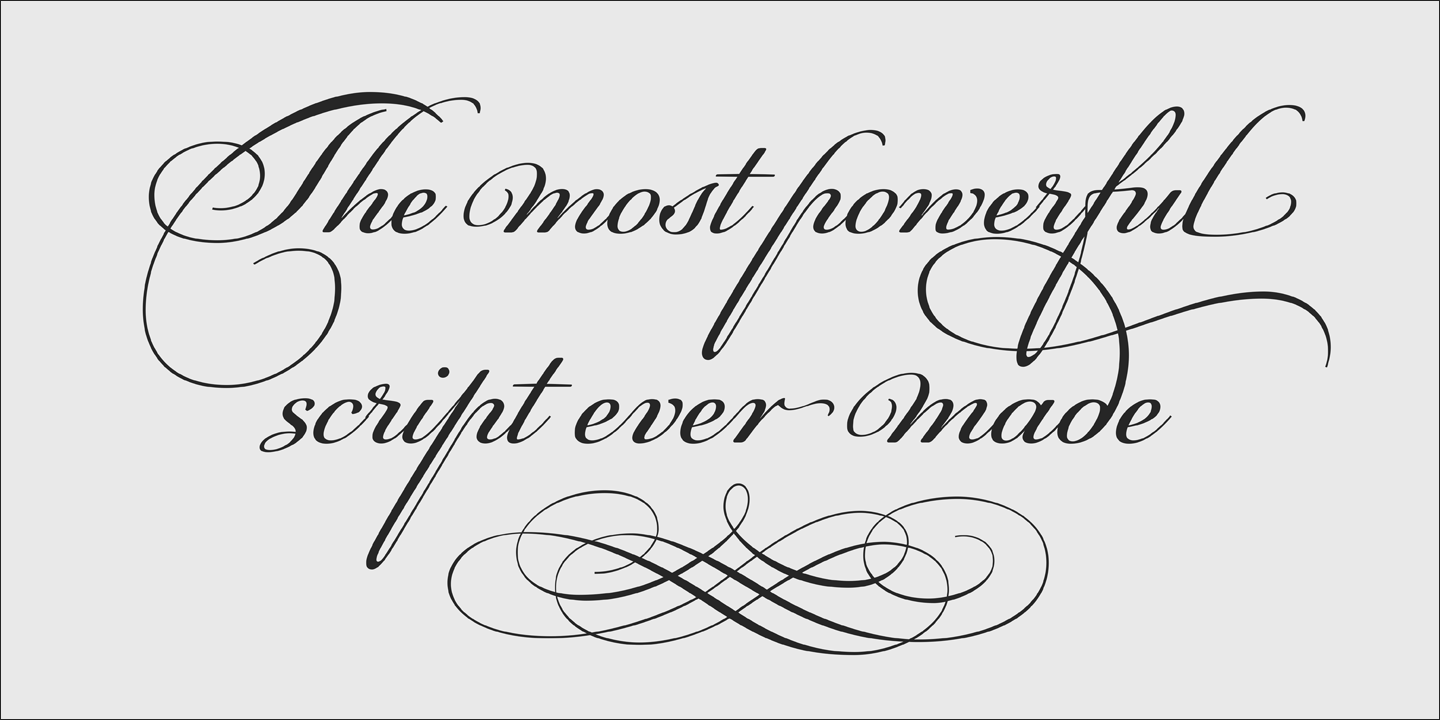
PF Champion Script Pro Font is perfect for championship design projects including sports team branding, victory celebrations, award ceremonies, championship merchandise, winning athlete endorsements, trophy engraving, competition signage, and triumphant marketing campaigns. This victorious typeface works perfectly for sports organizations, championship events, athletic achievement awards, victory parade materials, and projects that celebrate the excellence and determination of champions across all competitive endeavors.
What makes PF Champion Script Pro Font exciting is its triumphant championship character that perfectly captures the essence of victory achievement and competitive excellence. The font features elegant script letterforms with winning styling that reflects the grace and determination of championship performances. Its victorious design elements embody the spirit of athletic achievement and competitive success, making it perfect for projects that need to convey excellence, victory, and connection to championship culture. The carefully crafted winning proportions create an atmosphere of championship sophistication and victory authenticity.
PF Champion Script Pro Font comes in multiple family variations including victorious, elegant, championship, and winning styles. Each weight maintains the distinctive champion character while offering different levels of victory intensity and championship presence. The font family includes victory alternates, championship ligatures, and winning variations that provide designers with comprehensive options for creating truly triumphant and authentically championship typographic compositions that celebrate competitive excellence.
Whether you're designing championship branding, creating victory marketing materials, or developing triumphant promotional graphics, PF Champion Script Pro Font Free Download provides the perfect typographic foundation for projects that celebrate championship excellence and competitive sophistication. This remarkable typeface transforms ordinary text into compelling expressions of victory wisdom and championship elegance. Download this victorious font today and champion your design projects with the winning authenticity and championship refinement that captures the essential spirit of competitive achievement and victory celebration.